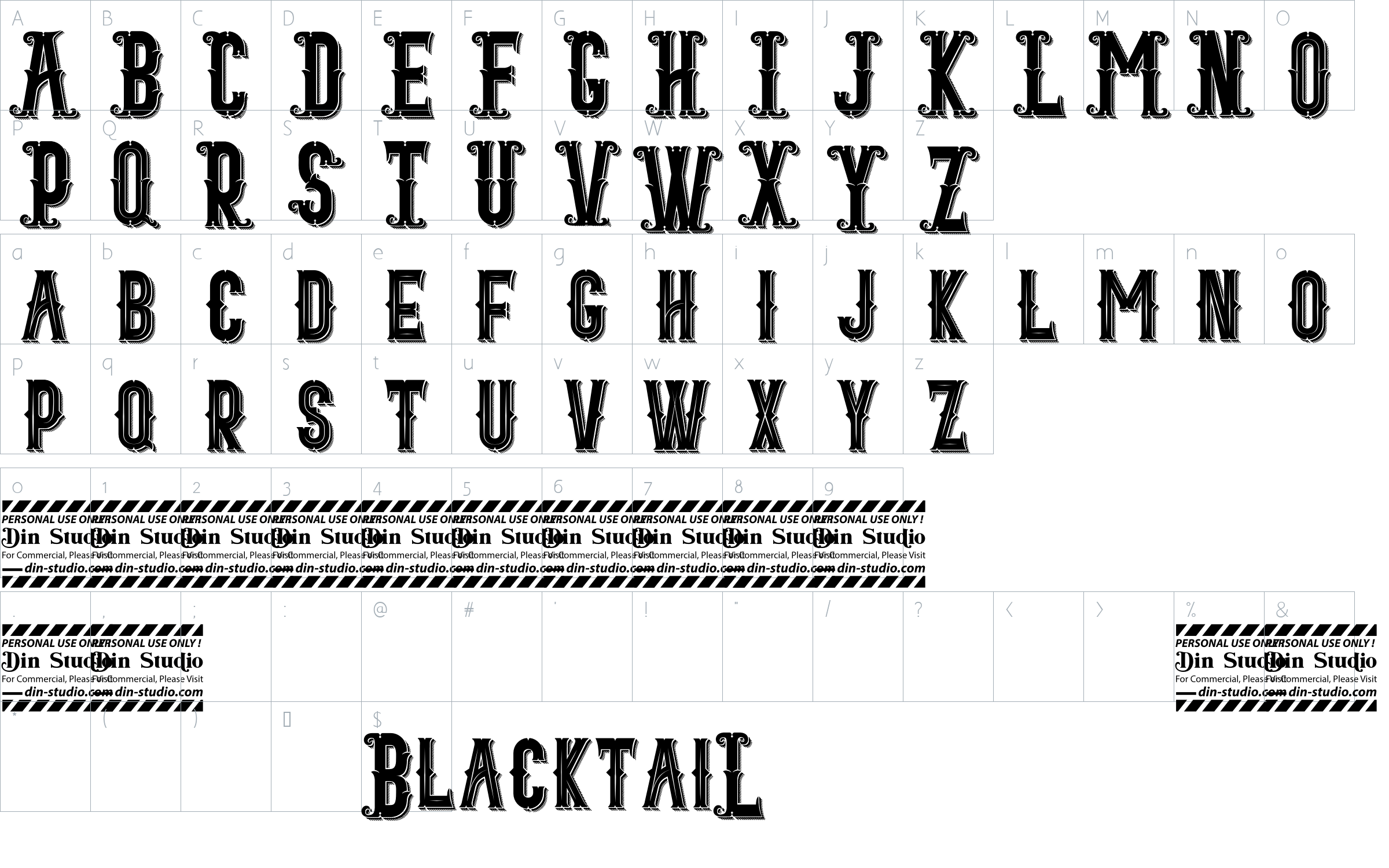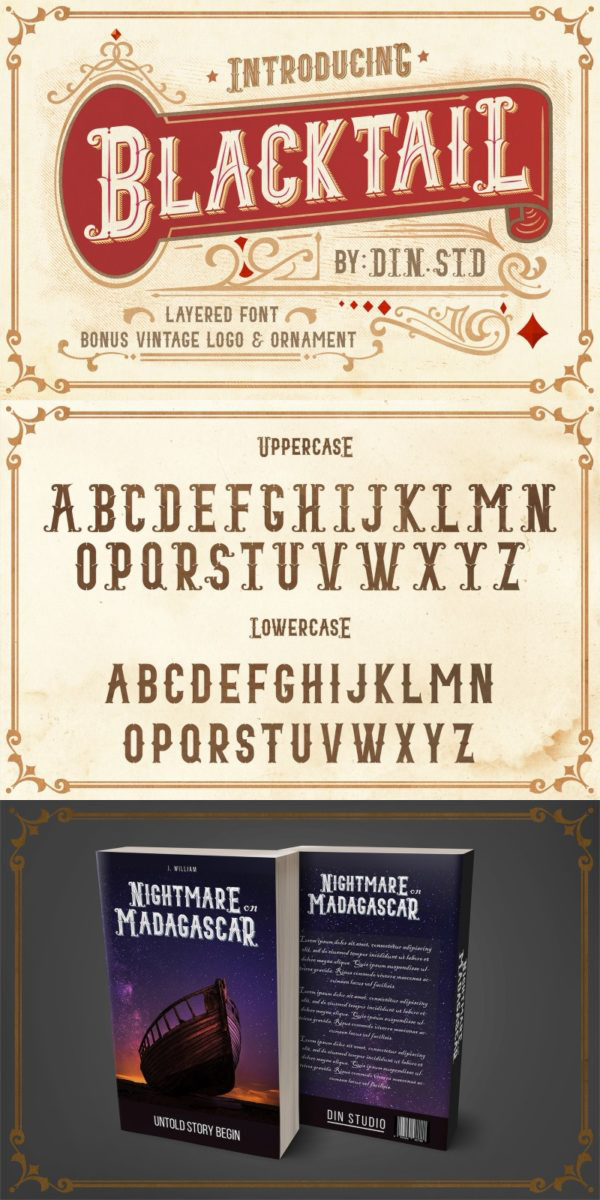
Blacktail Font
About Blacktail
Calling out all Blacktail! Here is Blacktail Vintage Font for your vintage concept project designs. This font presents a vintage and layered style containing four layers. It is best for branding projects, t-shirt printings, book covers, film titles and any other designs needing vintage vibes on them. Make your design look powerful with this font.